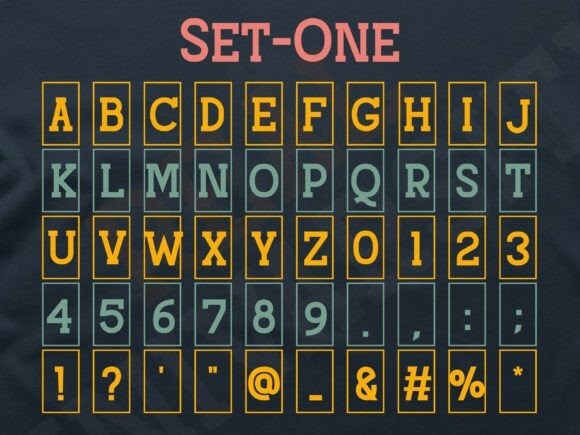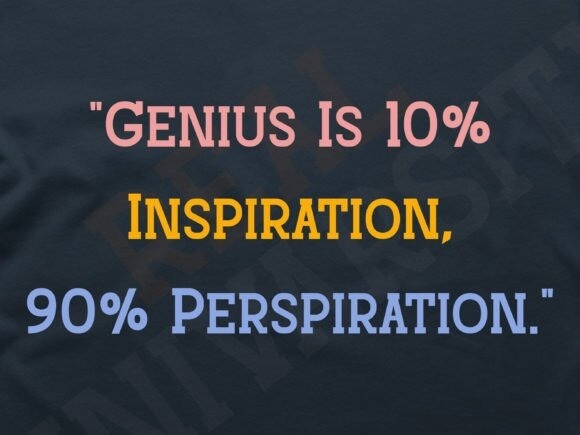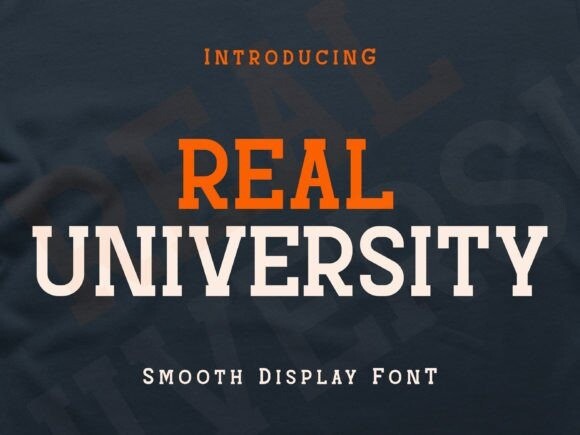
Real University Font
Designer: MistyDesigns
Real University Font is a fun and cute modern display font, inspired by college typography. This font is perfect for any branding projects. It is suitable for book covers, posters, packaging, merchandise, logotype, invitation, quote, t-shirt, text, effect, and much more